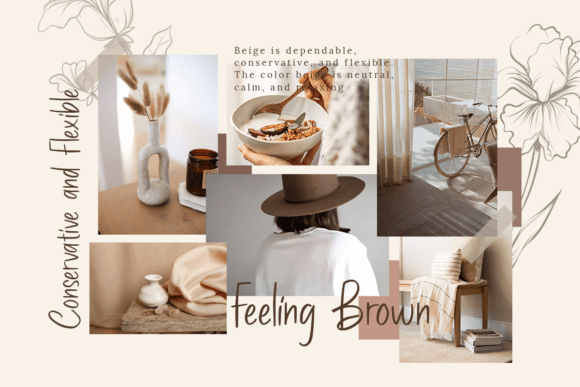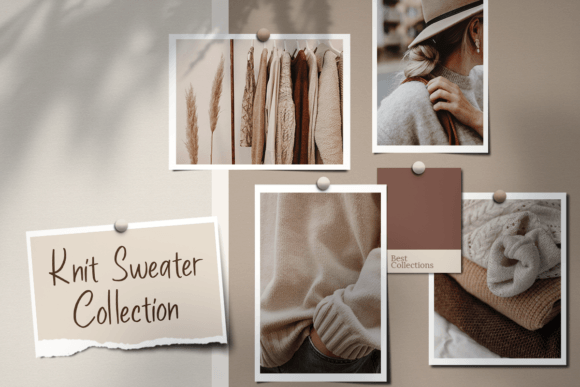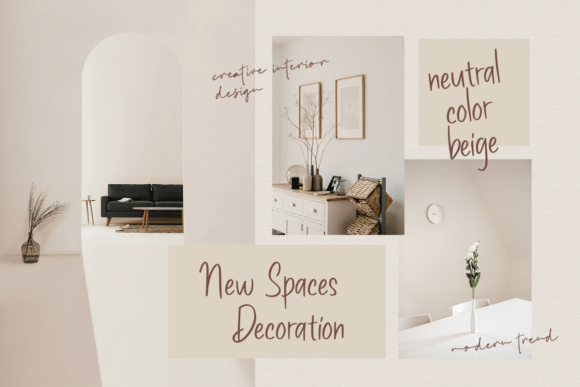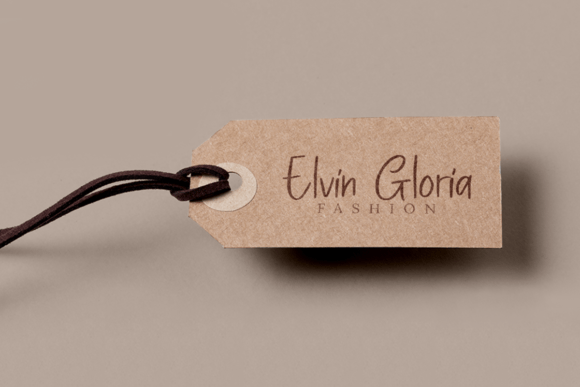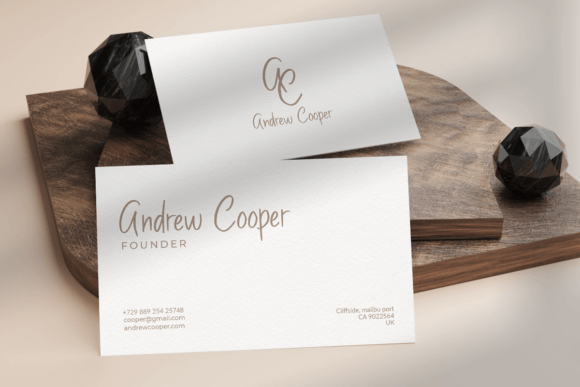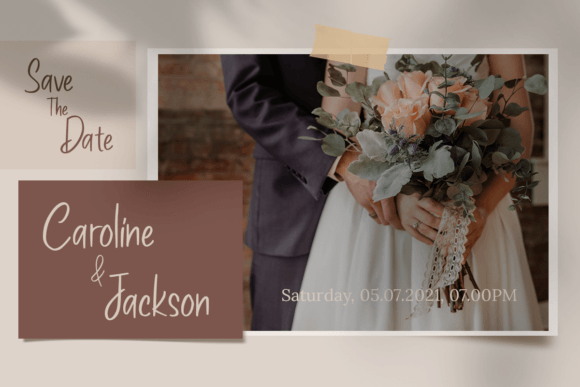
The American Journey Font: A Sweet and Friendly Companion for Your Designs
I’ll never forget the moment I stumbled upon the American Journey font. I was working on a project for a client who wanted a friendly, approachable vibe, but I was struggling to find the right font to convey that feeling. That’s when I discovered American Journey, a sweet and friendly handwritten font that instantly resonated with me. Its natural and unique style made it incredibly fitting for a wide range of designs, and I knew right then and there that it was going to be a game-changer for my creative work.
What I Love About American Journey ✨
- ✅ Unique and distinctive style: American Journey has a one-of-a-kind look that’s both modern and timeless.
- ✅ Highly versatile: This font can be used for a wide range of projects, from branding and advertising to crafting and DIY tutorials.
- ✅ Elegant and refined: Despite its friendly and approachable vibe, American Journey has an undeniable air of sophistication.
- ✅ Easy to read: The font’s clear and legible design makes it perfect for body text, headings, and titles.
- ⚠️ Limited use for very formal projects: While American Journey is elegant and refined, it may not be the best fit for very formal or corporate projects that require a more traditional look.
- ⚠️ May not work well with very bold or bright color schemes: The font’s delicate design may get lost with very bold or bright color schemes, so it’s best to pair it with more muted or pastel colors.
The Story Behind American Journey
American Journey was designed with the intention of creating a font that would evoke a sense of warmth and friendliness. The designer wanted to create a font that would be perfect for a wide range of projects, from branding and advertising to crafting and DIY tutorials. With its unique and distinctive style, American Journey has quickly become a favorite among designers and crafters alike.
Q: What makes American Journey so versatile?
A: American Journey’s unique and distinctive style, combined with its elegant and refined look, makes it incredibly versatile and suitable for a wide range of projects.
Q: Is American Journey easy to read?
A: Yes, American Journey is designed to be clear and legible, making it perfect for body text, headings, and titles.
Q: Can I use American Journey with bold or bright color schemes?
A: While American Journey can work well with bold or bright color schemes, it’s best to pair it with more muted or pastel colors to avoid overwhelming the design.